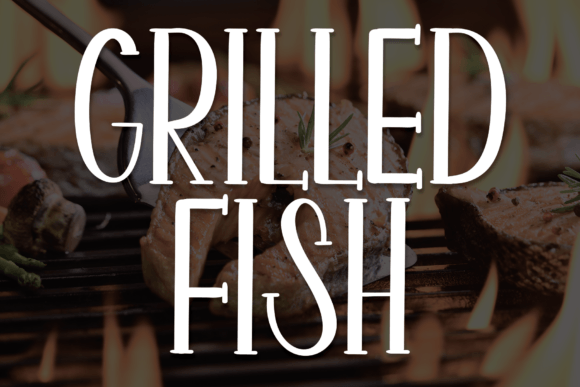
Introducing Grilled Fish Font: A Sweet and Friendly Handwritten Display Font
Are you looking for a font that can add a touch of sweetness and friendliness to your designs? Look no further than Grilled Fish Font, a beautiful handwritten display font that is perfect for a variety of creative projects. In this article, we’ll take a closer look at Grilled Fish Font, its features, and how you can use it to elevate your designs.
What is Grilled Fish Font?
Grilled Fish Font is a sweet and friendly handwritten display font that is designed to add a touch of whimsy and fun to your designs. This font is perfect for anyone who wants to create a warm and inviting atmosphere in their designs, whether it’s for a wedding invitation, a greeting card, or any other project that requires a personal touch.
Key Features of Grilled Fish Font
- Handwritten display font: Grilled Fish Font is a handwritten display font that is designed to make a statement. Its unique and creative design makes it perfect for headlines, titles, and other display text.
- Sweet and friendly: This font has a sweet and friendly feel to it, making it perfect for designs that require a personal touch.
- Creative and cute: Grilled Fish Font is a creative and cute font that is sure to add a touch of whimsy to your designs.
- Perfect for wedding invitations and cards: This font is ideal for writing wedding invitations, cards, or any other design that might need a fun touch.
How to Use Grilled Fish Font
Grilled Fish Font is a versatile font that can be used for a variety of creative projects. Here are some ideas on how to use this font:
- Wedding invitations: Use Grilled Fish Font to create beautiful and unique wedding invitations that will set the tone for the big day.
- Greeting cards: This font is perfect for creating greeting cards for birthdays, holidays, and other special occasions.
- Social media graphics: Use Grilled Fish Font to create eye-catching social media graphics that will help you stand out from the crowd.
- Logos and branding: This font can be used to create unique and memorable logos and branding materials.
Benefits of Using Grilled Fish Font
There are many benefits to using Grilled Fish Font in your designs. Here are a few:
- Unique and creative: Grilled Fish Font is a unique and creative font that will help you stand out from the crowd.
- Easy to read: This font is easy to read, making it perfect for designs that require a lot of text.
- Versatile: Grilled Fish Font can be used for a variety of creative projects, from wedding invitations to social media graphics.
- Time-saving: Using a pre-made font like Grilled Fish Font can save you time and effort in your design process.
Tips for Using Grilled Fish Font
Here are a few tips for using Grilled Fish Font in your designs:
- Use it sparingly: While Grilled Fish Font is a beautiful font, it’s best to use it sparingly to avoid overwhelming your design.
- Pair it with other fonts: Experiment with pairing Grilled Fish Font with other fonts to create a unique and interesting design.
- Adjust the size and color: Adjust the size and color of Grilled Fish Font to fit your design needs.
Grilled Fish Font is a sweet and friendly handwritten display font that is perfect for adding a touch of whimsy and fun to your designs. With its unique and creative design, this font is ideal for wedding invitations, cards, and other projects that require a personal touch. Whether you’re a designer, artist, or DIY enthusiast, Grilled Fish Font is a great addition to your font collection.